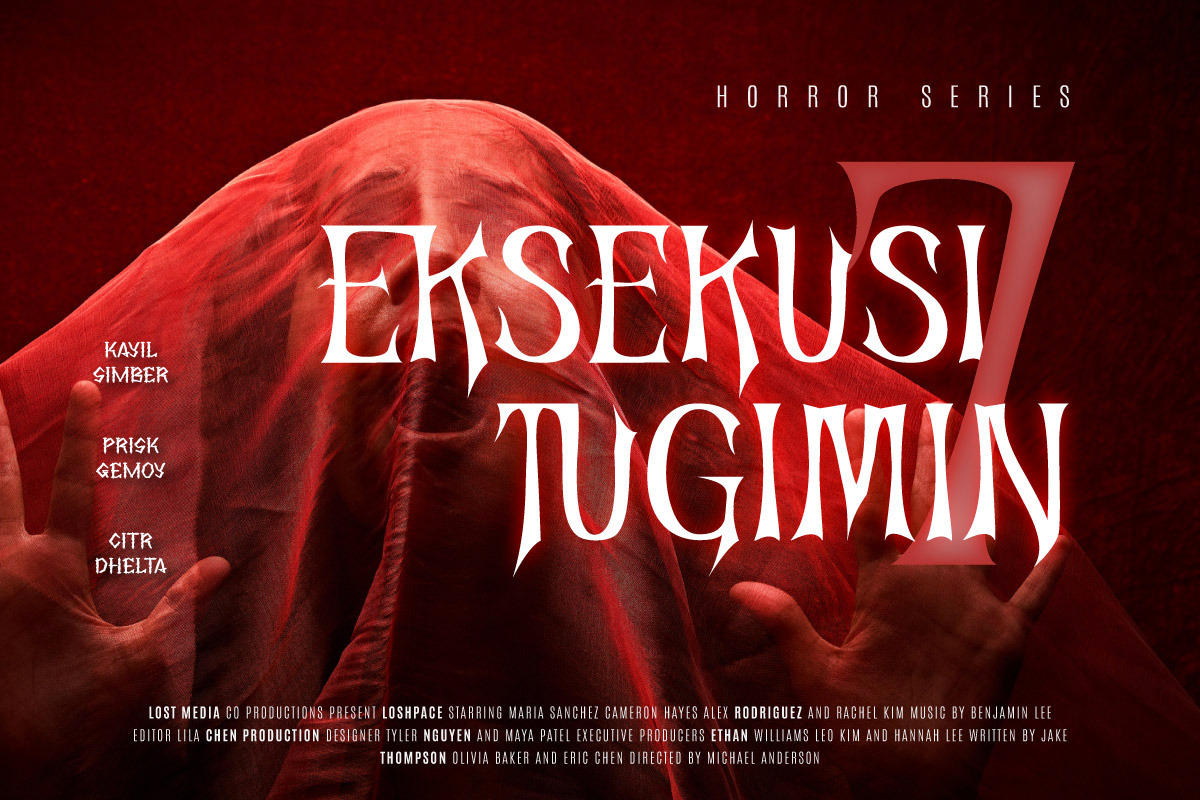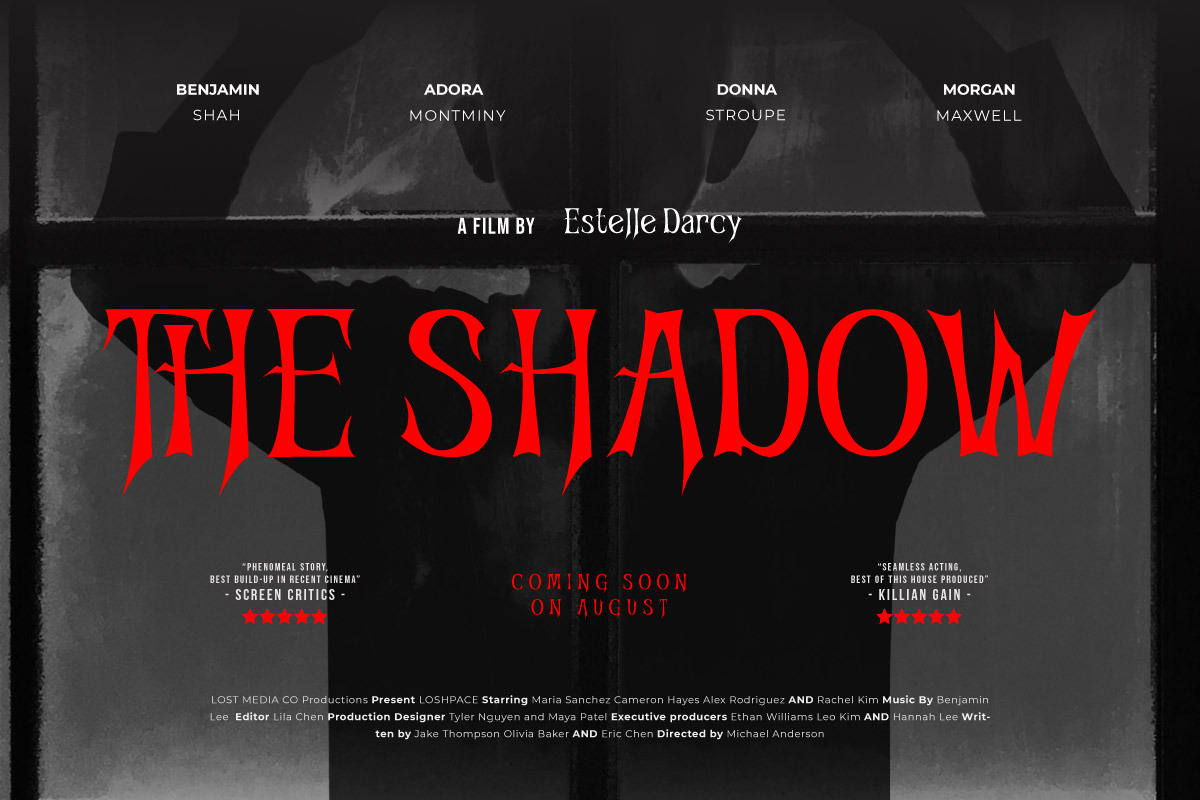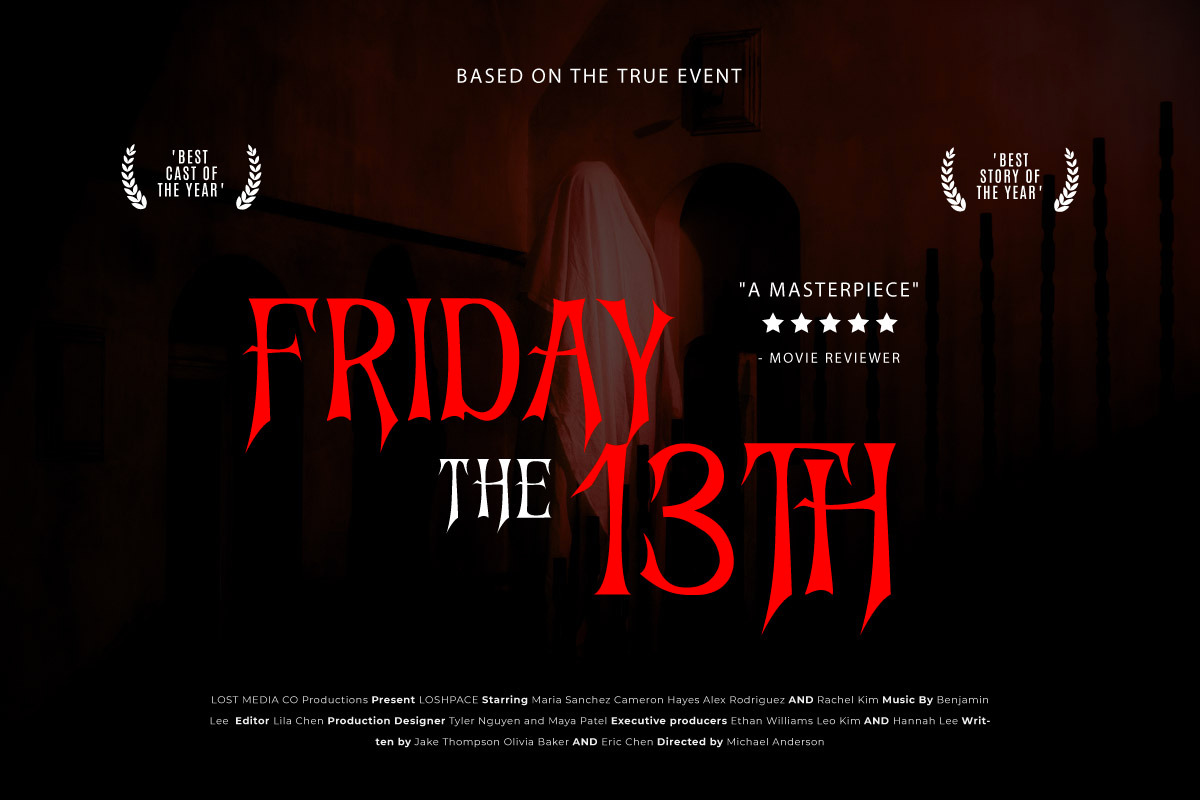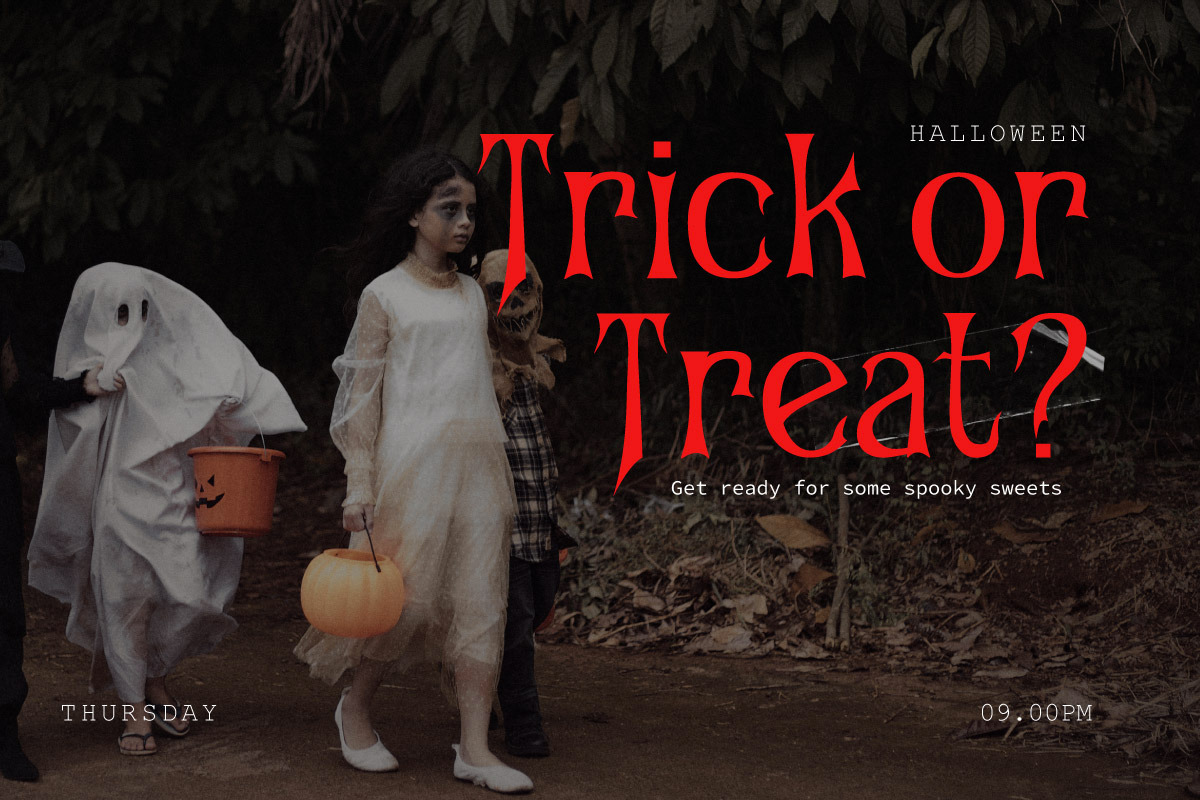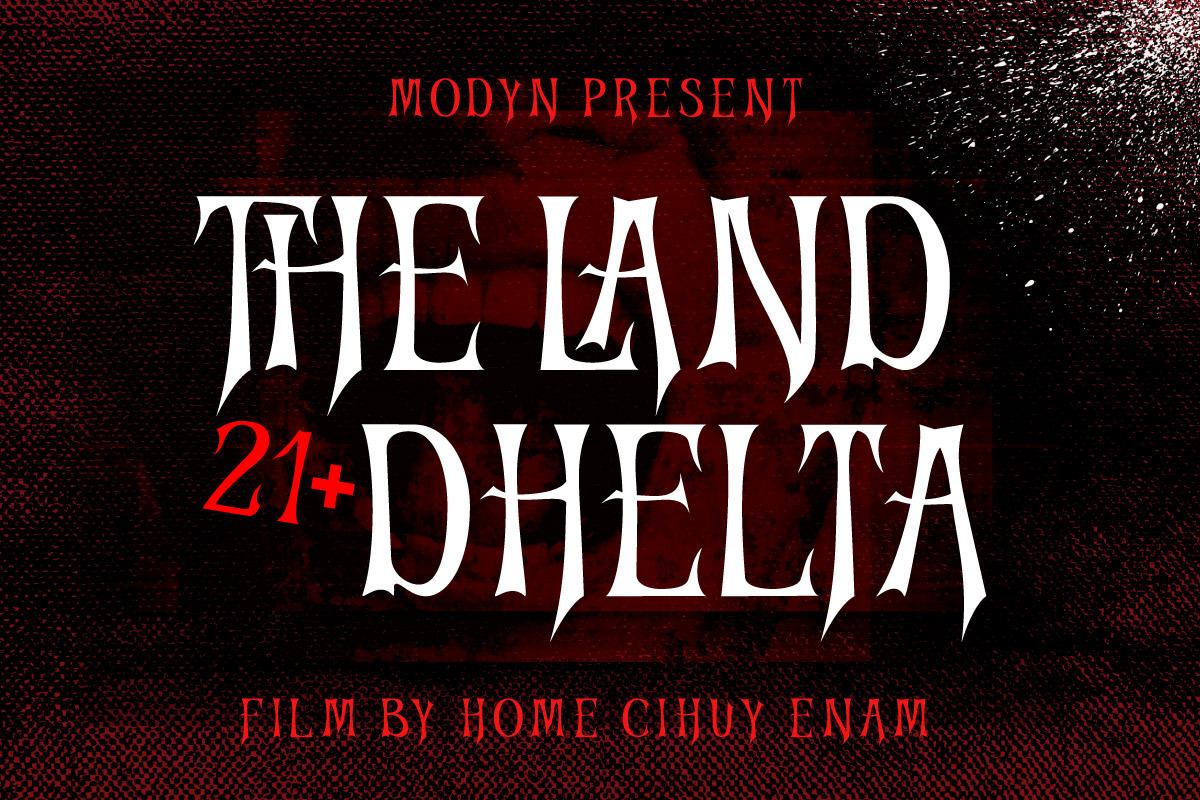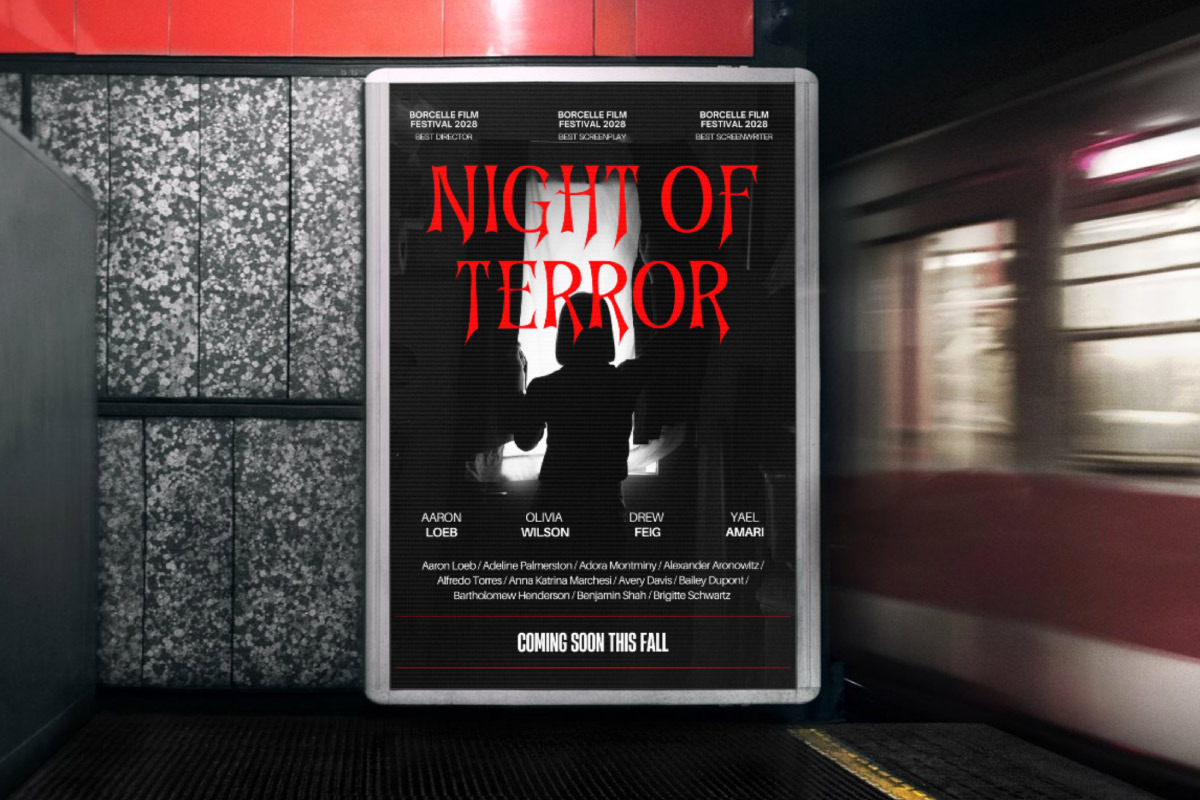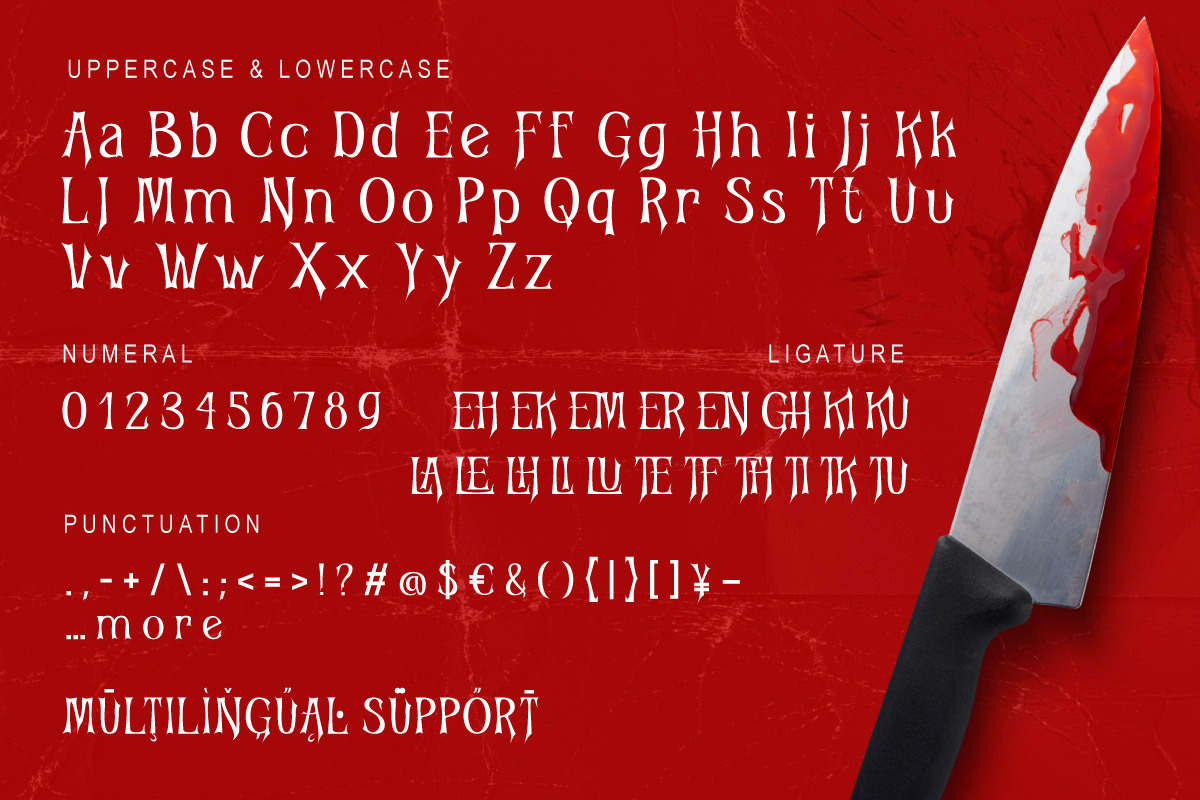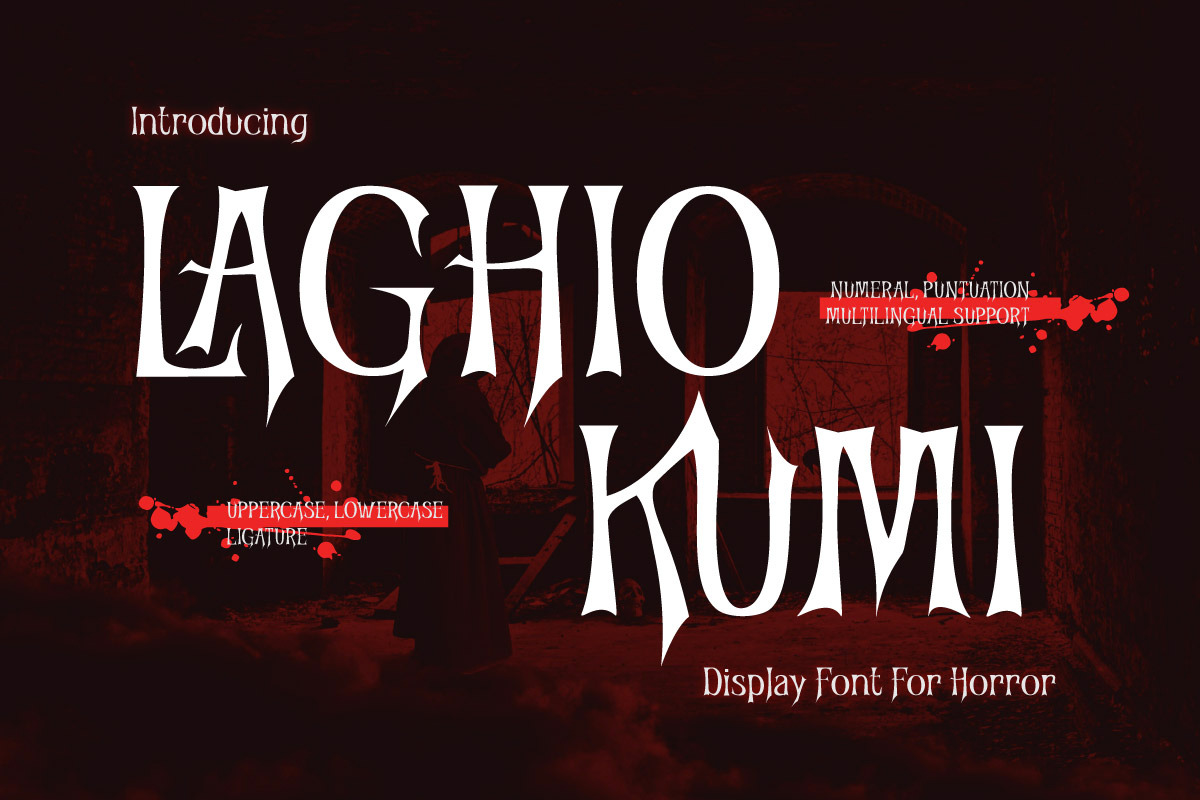
Laghio Kumi - Display Horror Font
"Laghio Kumi is a terrifying display horror font designed to bring fear and intensity to your creative projects. With its sharp, jagged edges and eerie letterforms, this font captures the essence of horror, making it perfect for projects that demand a dark, sinister atmosphere.
Ideal for movie titles, posters, Halloween-themed designs, book covers, gaming graphics, and spooky branding, Laghio Kumi enhances any horror concept with its menacing and haunting aesthetic. Whether you’re working on a thriller, a haunted house attraction, or a chilling marketing campaign, this font will leave an unforgettable impact on your audience.
- Fonts include Multilingual: Support for 85 languages. Afrikaans, Albanian, Asu, Basque, Bemba, Bena, Breton, Catalan, Chiga, Cornish, Croatian, Czech, Danish, Dutch, Embu, English, Esperanto, Estonian, Filipino, Finnish, French, Friulian, Galician, Gusii, Hungarian, Indonesian, Irish, Italian, Kabuverdianu, Kalenjin, Kamba, Kikuyu, Kinyarwanda, Latvian, Lithuanian, Lower, Sorbian, Luo, Luxembourgish, Luyia, Machame, Makhuwa-Meetto, Makonde, Malagasy, Maltese, Manx, Meru, Morisyen, North, Ndebele, Norwegian Bokmål, Norwegian Nynorsk, Nyankole, Oromo, Polish, Portuguese, Quechua, Romanian, Romansh, Rombo, Rundi, Rwa, Samburu, Sango, Sangu, Scottish, Gaelic, Sena, Serbian, Shambala, Shona, Slovak, Slovenian, Soga, Somali, Spanish, Swahili, Swedish, Swiss German, Taita, Teso, Turkish, Upper Sorbian, Uzbek (Latin), Volapük, Vunjo, Walser, Zulu."